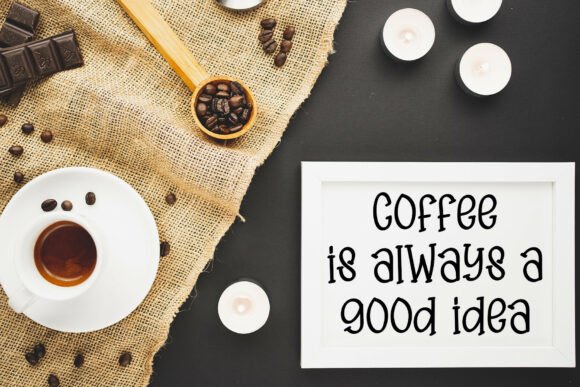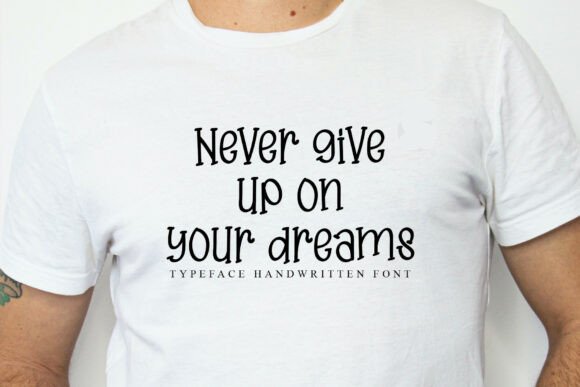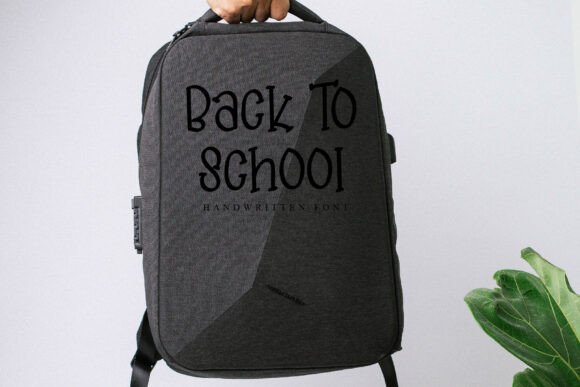
Introduction to Santa Cookies Font
As a designer, there’s nothing quite like the thrill of bringing a creative project to life. The moment when all the elements come together, and your vision takes shape – it’s a feeling like no other. And for many of us, a key part of that process is choosing the perfect font to match our style and tone. That’s where the Santa Cookies Font comes in – a unique and elegant design resource that’s sure to elevate your next project.
Whether you’re working on a high-quality greeting card, a birthday invitation, or a school assignment, the Santa Cookies Font is a valuable addition to your design arsenal. With its professional hand touch and transparent background, this font is perfect for designers who want to add a touch of whimsy and sophistication to their work.
Key Features of Santa Cookies Font
- High-quality font designed specifically for creative projects, perfect for holiday-themed designs.
- Unique characteristics include whimsical illustrations and playful typography, ideal for festive and fun designs.
- Perfect for use in digital design projects, including social media graphics, web design, and print materials.
Honest Review: Santa Cookies Font
As a designer, I’m always on the lookout for high-quality design resources to elevate my creative projects. Recently, I stumbled upon the Santa Cookies Font, and I must say, it’s a delightful find!
Here are some things that work well with this font:
- ✨ The font’s design is playful and festive, perfect for holiday-themed projects or food-related branding.
- ✨ The transparent background allows for seamless integration with various design elements.
However, I do have a few limitations to note:
- ⚠️ The font is not suitable for formal or professional projects, as its playful nature may not convey the desired level of sophistication.
- ⚠️ The font’s design, while cute, may be too busy for some projects, requiring additional design elements to balance it out.
Overall, I’m impressed with the Santa Cookies Font’s unique charm and versatility. While it may not be suitable for every project, it’s an excellent addition to any design resource collection, especially for creative projects that require a playful touch.
Santa Cookies Font
The Santa Cookies Font is a high-quality design resource that can elevate your creative project with its festive and fun design. This free download is perfect for adding a touch of whimsy to your designs.
Tips for Getting the Most Out of Santa Cookies Font
To get the most out of the Santa Cookies Font, be sure to use it on a transparent background to give it a seamless look. You can also experiment with different font sizes and styles to create a unique and eye-catching design.
The Santa Cookies Font is perfect for creating festive designs for holidays like Christmas and Halloween. It can also be used for creating fun and playful designs for social media, advertising, and other marketing materials.